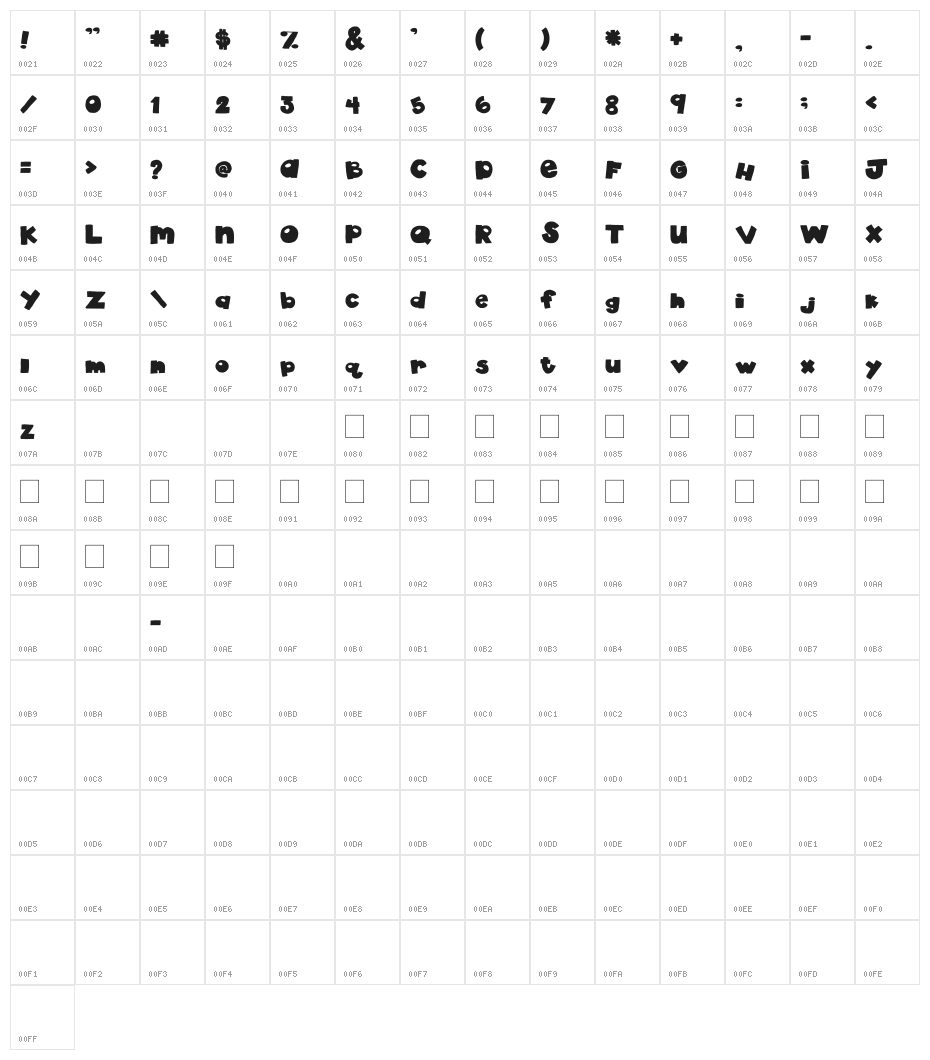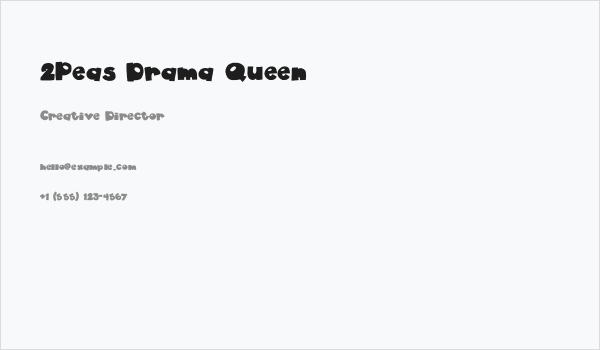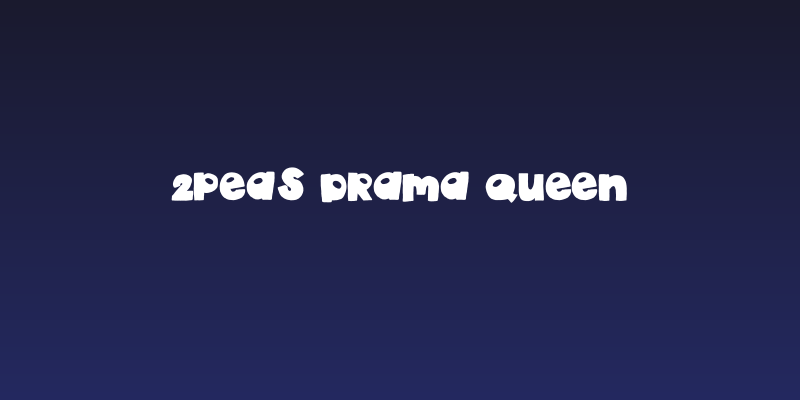
2Peas Drama Queen Font
2Peas Drama Queen Description
This font is a playful and bold display typeface with a whimsical and quirky style. The characters are chunky and irregular, giving it a hand-drawn appearance. The uppercase and lowercase letters maintain a consistent boldness, with some letters featuring exaggerated curves and angles. The numbers and special characters follow the same playful design, making them stand out. This font is perfect for projects that require a fun and informal touch, such as children's books, party invitations, or playful branding. Its unique style ensures that it captures attention and conveys a sense of creativity and joy.
| Proposed Projects | Ideal for children's books, party invitations, playful branding, and creative projects. |